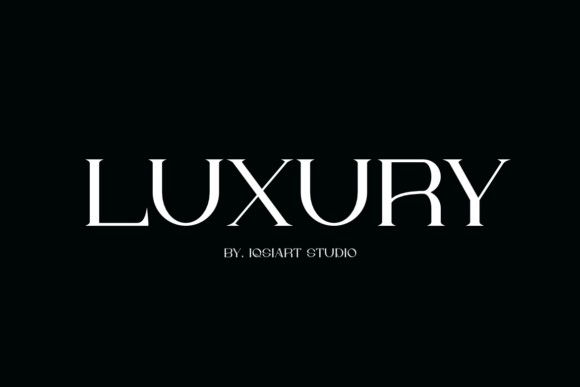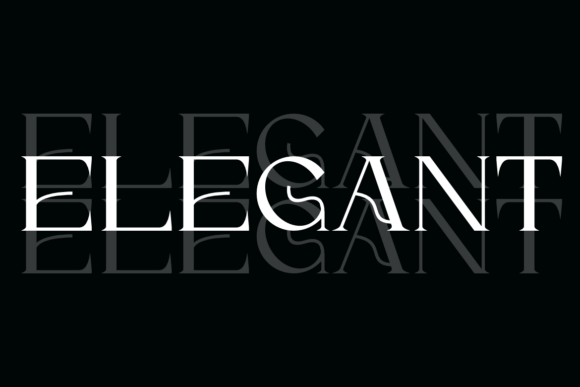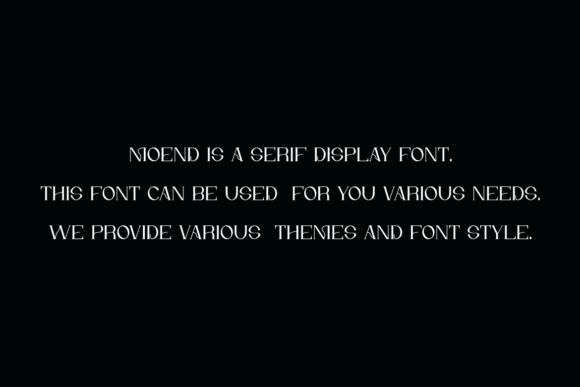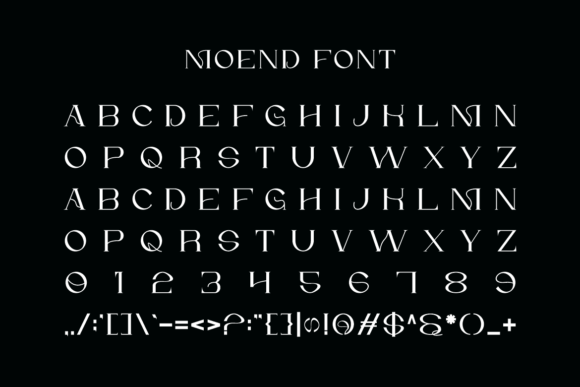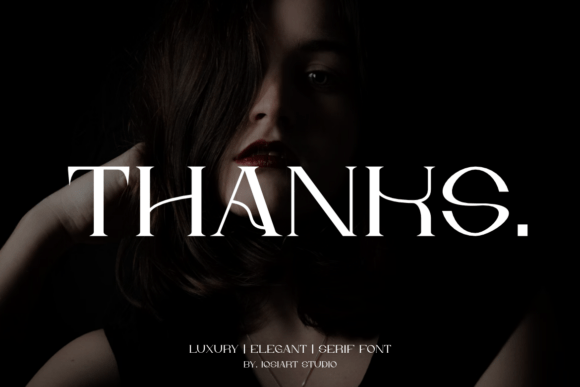
Introduction to Moend Font
You’re in the midst of a creative project, pouring over every detail to ensure it’s perfect. The right font can make all the difference, elevating your design from good to exceptional. That’s where the Moend Font comes in – a sophisticated serif font that effortlessly blends classic elegance with modern refinement.
Imagine a font that exudes timeless luxury and professionalism, with high-contrast strokes, graceful curves, and finely tuned serifs that add a touch of sophistication to any project. Whether you’re working on an editorial layout, branding, invitation, or upscale packaging, Moend Font is an ideal choice. Its balanced proportions and subtle details make it both versatile and memorable, making it a valuable resource for designers who demand high-quality results.
Key Features of Moend Font
- High-quality font design with a unique, minimalist aesthetic, ideal for creative projects.
- Transparent background, making it easy to layer over images and graphics.
- Includes a range of weights and styles, allowing for versatility in design applications.
- Designed at 1024 x 1024 pixels, with a resolution of 300 DPI for crisp and clear typography.
- Perfect for use in digital design, including web design, mobile apps, and graphic design projects.
Honest Review: Moend Font
As a designer, I’m always on the lookout for high-quality design resources that can elevate my creative projects. The Moend Font is a recent discovery that has caught my attention, and I’m excited to share my honest review with you.
- The Moend Font features a beautiful, modern design that is perfect for a wide range of creative projects.
- The transparent background allows for easy layering and blending with other design elements.
- The font family is relatively small, with only a few weights and styles available.
- The Moend Font may not be suitable for large-scale or complex typography projects.
Overall, I’m impressed with the Moend Font’s high quality and versatility. While it may have some limitations, it’s a great design resource for smaller creative projects or personal use. I’d definitely recommend it to fellow designers looking for a modern and stylish font.
The Moend Font is a high-quality design resource perfect for creative projects. Its transparent background makes it a versatile choice for various applications.
To get the most out of the Moend Font, use it in conjunction with other high-quality design resources. Experiment with different font sizes, colors, and combinations to create unique and eye-catching designs.
The Moend Font is perfect for a variety of creative projects, including logos, business cards, posters, and social media graphics. Its transparent background makes it a great choice for designs that require a subtle yet elegant touch.
Can I customize the Moend Font to suit my design needs?
Yes, the Moend Font is highly customizable, allowing you to adjust its size, color, and style to suit your design requirements. Additionally, the font’s transparent background makes it easy to layer and combine with other design elements, giving you more creative freedom for your project.